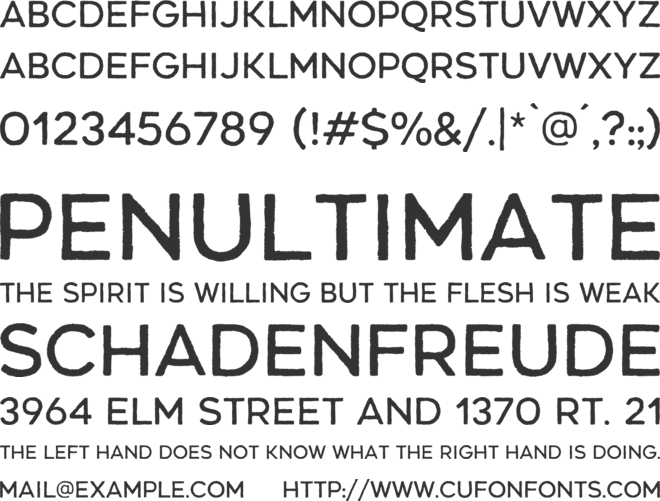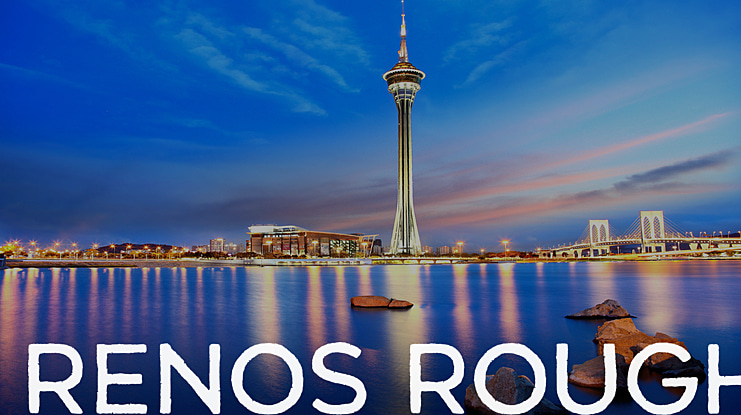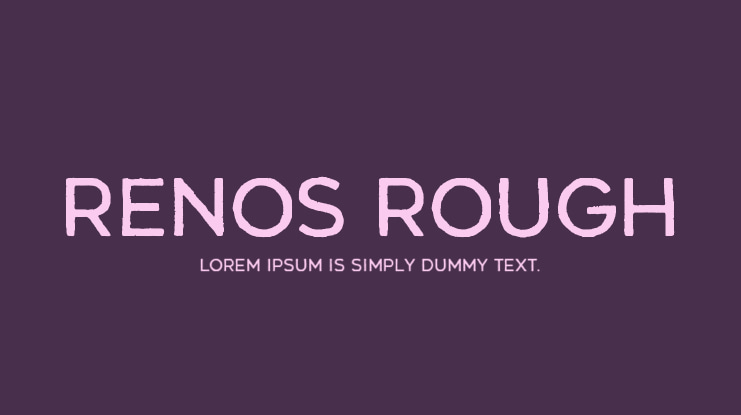
Renos Rough Font Family
Reno Rough is a distressed display typeface with an eroded rustic look, yet a distinct geometric spirit. It is free for personal use. But if you would like to use it for any commercial purpose, please donate $18 via PayPal by clicking the 'Donate to author' button, located below the download link. You would receive a confirmation mail regarding your purchase of the license for the font. Renos Rough also has multiple weights which can be purchased here: https://www.myfonts.com/fonts/deepak-dogra/renos-rough/
Renos Rough font preview